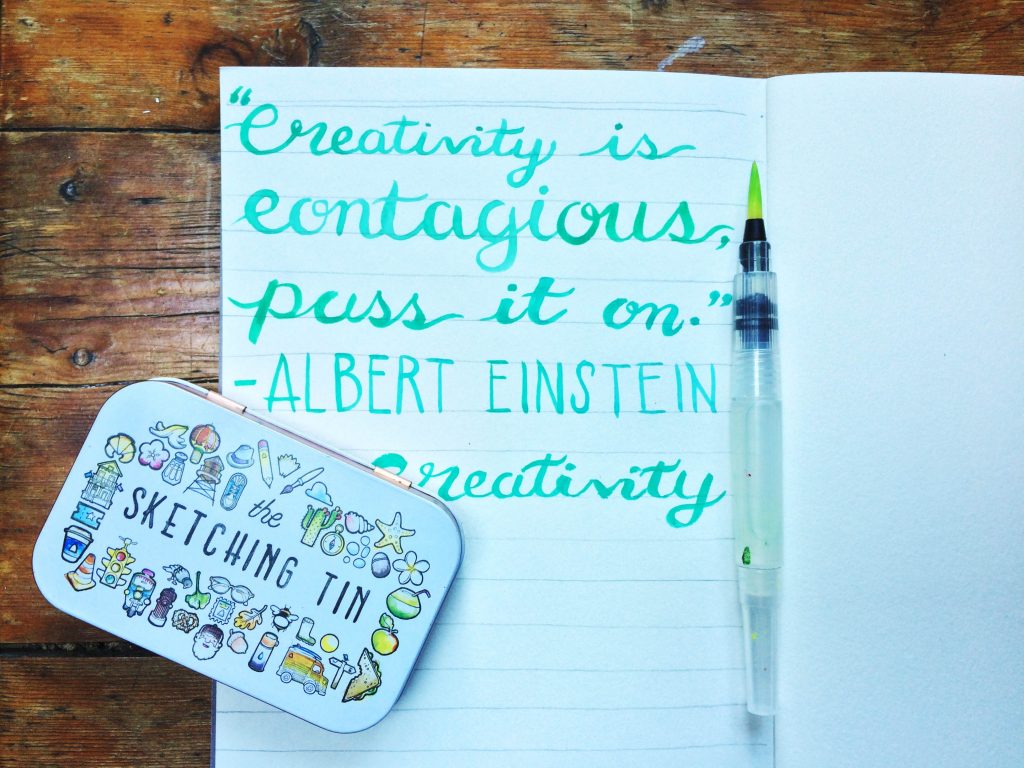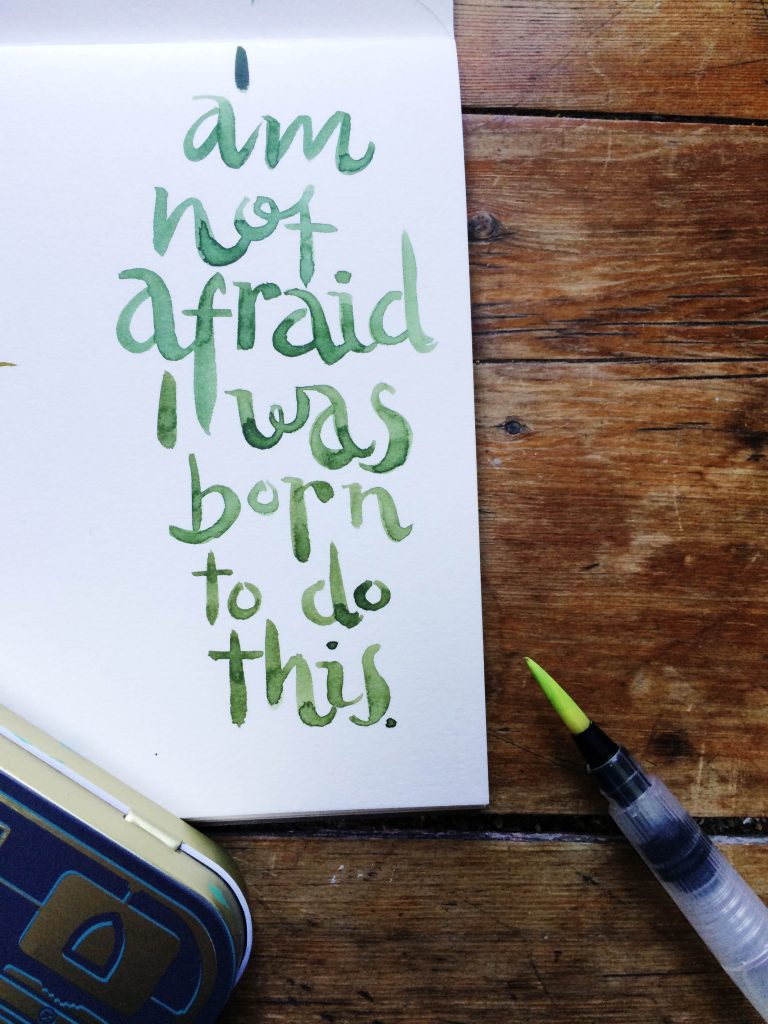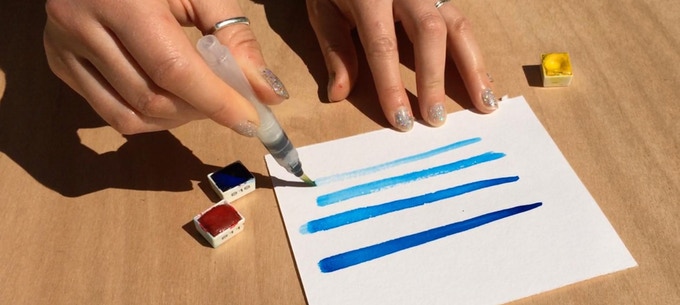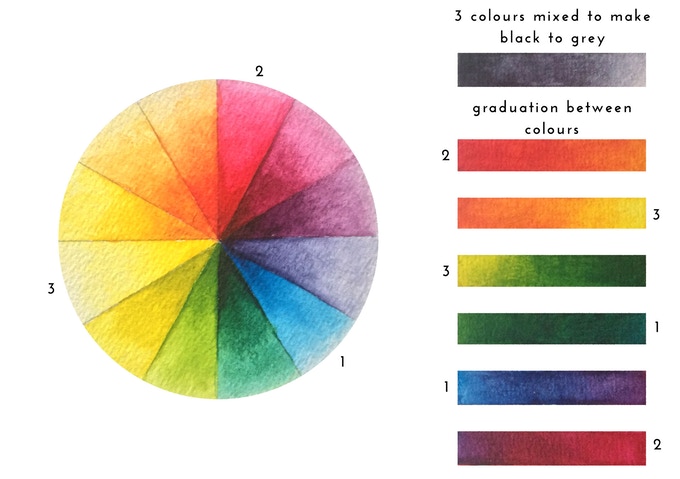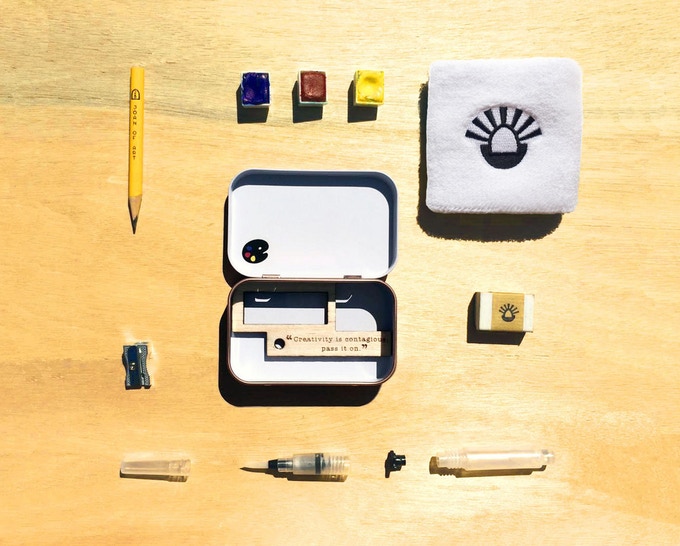
Joan of Art Sketching Tin for Lettering Anywhere
Joan of Art was established by the creative duo Suki and Thea Wilkins in 2016. The two ladies specialise in crafting useful art tools with the aim of making art fun and accessible, they also make plenty of artwork themselves too. Most recently, they have launched a Kickstarter campaign for a clever little portable Sketching Tin, which is the perfect tool for any lettering artist or illustrator on the go. In the past, they have released a number of art tools and themed products via their shop on Etsy.
I've known Thea for over ten years and our friendship formed over a shared interest in art, which is a pretty nice way to build a friendship. The Joan of Art Sketching Tin is a great item for developing artistic friendships, as it is a unique conversation starter and it can help to provide opportunities to meet people whilst creating out and about.
Joan of Art Sketching Tin
The Sketching Tin contains a variety of tools which are suitable for different styles of lettering.
Illustrative Lettering
Inside the tin you can find a 2B pencil which is perfect for sketching and drawing letters. There is also a pencil sharpener and rubber / eraser. Additionally, if you miss having some guide lines to keep your lettering straight and in proportion, then the side of the tin can provide you with a straight edge to draw along.
Brush Lettering
The 2B pencil can also be useful for brush lettering if you want to mark out some guides, or lightly write out where you want to place your brush lettering first. The brush pen and watercolour half pans which are included in the tin too, allow for a variety of brush lettering styles. Ombre effects can be created by adjusting the flow of water in the brush pen, and gradient effects can be created by mixing the half pan watercolours. With just three watercolour half pans a number of colours and gradients can be produced, and the tin lid is specially coated for mixing colours.
It's also possible to make your brush lettering look smooth, rough or somewhere in between depending upon how much water you have in the brush and how dry the brush tip is. As an added bonus the tin includes a cotton cuff which you can use to dry the tip of the brush. This makes it easier to create dry looking brush lettering without wasting pages of your sketchbook, or sections of your paper trying to remove excess water from the brush.
The Sketching Tin will be a valuable addition to any lettering artists toolkit, and it's been wonderful to see Suki and Thea develop Joan of Art into something truly fantastic for the artistic community, and inclusive of the lettering community.